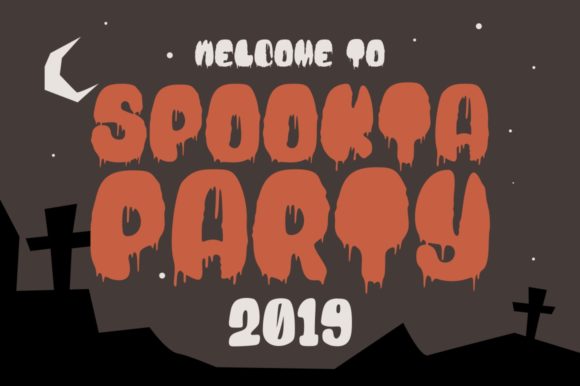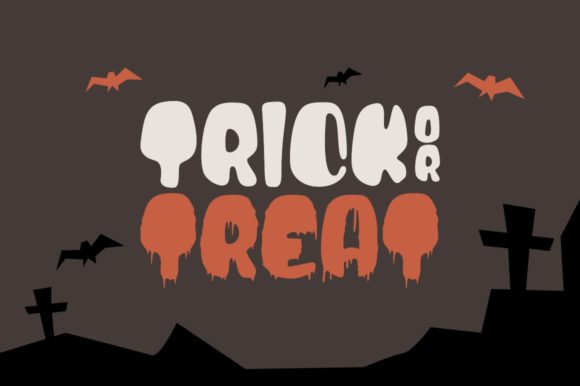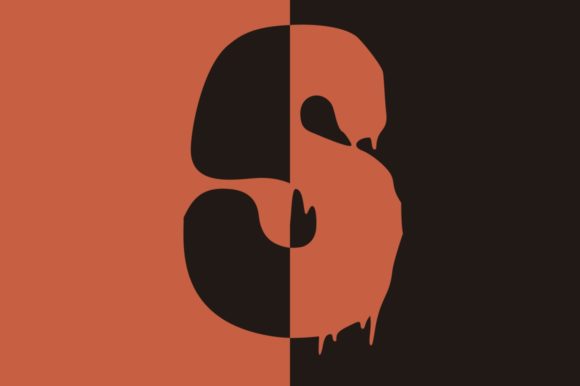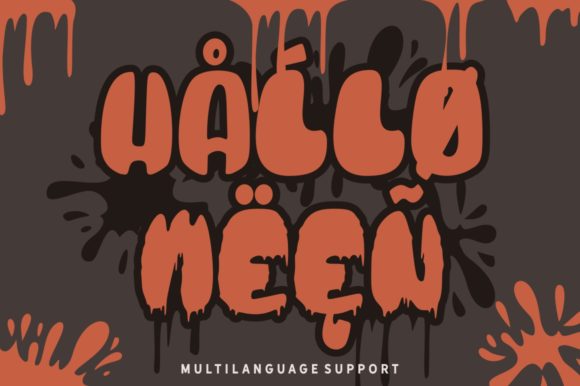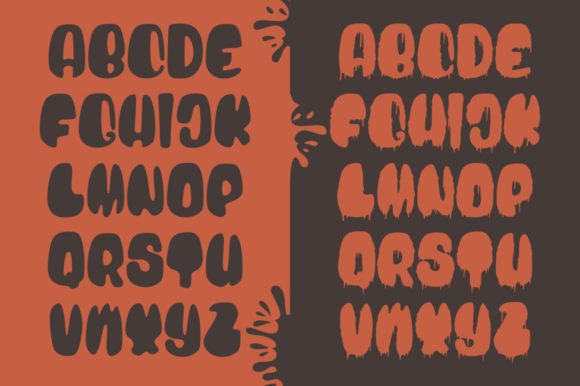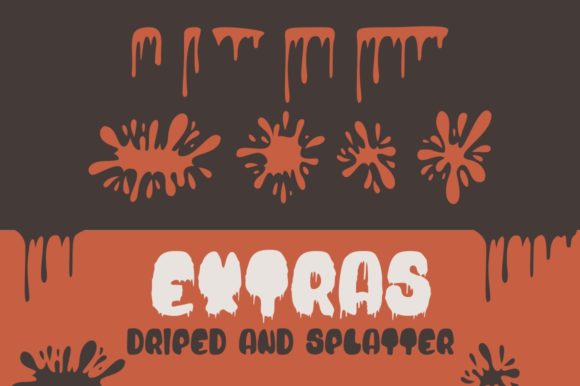
The Blood Bold Font: A Bloody Perfect Choice for Halloween Designs
I’ll never forget the year I was tasked with creating a spooky Halloween-themed design for a client’s party invitation. As I scoured the internet for the perfect font, I stumbled upon Blood Bold – a bold display font that would change the game for all my future Halloween designs. In this article, I’ll share my experience with Blood Bold, its features, and how to make the most of it in various design platforms.
My First Encounter with Blood Bold
I was working on a tight deadline, and my client wanted a font that would scream “Halloween.” I tried several fonts, but none seemed to capture the eerie, bold vibe I was looking for. That’s when I discovered Blood Bold. Its bold, bloody letters immediately caught my attention, and I knew I had found the perfect fit. The font’s unique design and versatility have since made it a staple in my design arsenal.
An Honest Review of Blood Bold
The Good: What I Love About Blood Bold
• ✨ Perfect for Halloween designs: Blood Bold’s bold, bloody letters are tailor-made for spooky designs, making it an excellent choice for Halloween-themed projects.
• ✅ Easy to read: Despite its bold design, Blood Bold is surprisingly easy to read, even in smaller sizes.
• 🎃 Versatile: Blood Bold can be used for a wide range of designs, from party invitations to social media graphics.
The Not-So-Good: Small Quirks and Limitations
While Blood Bold is an excellent font, it’s not without its quirks. Here are a few things to keep in mind:
• 🤔 Limited use outside of Halloween: Blood Bold’s design is so closely tied to Halloween that it might not be the best choice for other design projects.
• ⚠️ May not work well in small sizes: While Blood Bold is easy to read in larger sizes, it may become distorted or difficult to read in very small sizes.
The Designer Inspiration Behind Blood Bold
The story behind Blood Bold’s design is shrouded in mystery, but it’s said that the font was created by a designer who wanted to capture the essence of Halloween in a single font. Inspired by classic horror movies and haunted houses, Blood Bold’s designer aimed to create a font that would evoke the spooky, eerie feeling of the holiday.
Font Name Blood Bold Font
Author StringLabs
Q: What type of designs is Blood Bold best suited for?
A: Blood Bold is perfect for Halloween-themed designs, such as party invitations, social media graphics, and posters.
Q: Is Blood Bold available in different weights or styles?
A: Blood Bold is primarily available as a bold font, but some variations may include additional weights or styles.